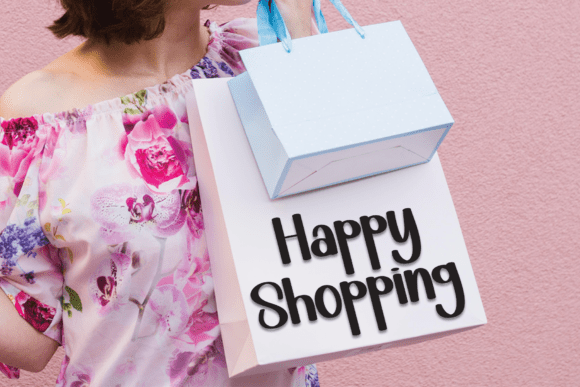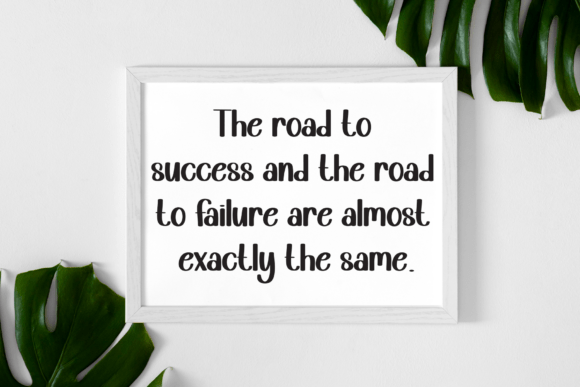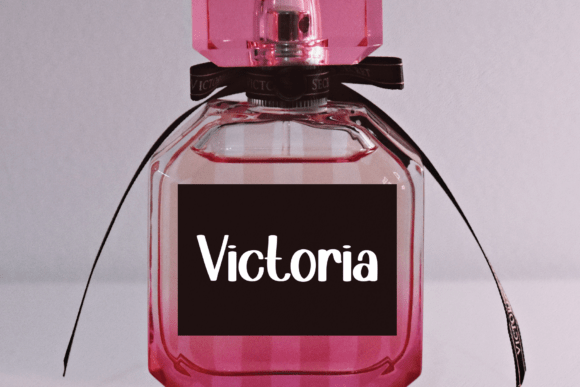
Cafe Morning Font
Introducing a delightful and personable handwritten display font – a perfect blend of sweetness and friendliness. This charming font breathes life into your wedding invitations, greeting cards and just about any design seeking a dash of fun. Its carefree appeal turns any ordinary text into an extraordinary work of art, vivifying your creative visions. There’s an undeniable cuteness that adds an element of fun, making it a resplendent choice for light-hearted, creative endeavors. A single use of this delightful font is sure to infuse your designs with an irresistible, playful touch.